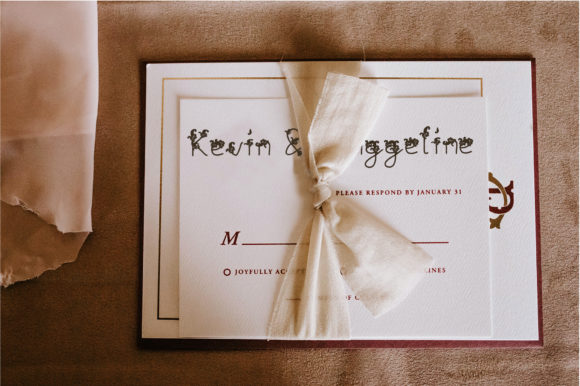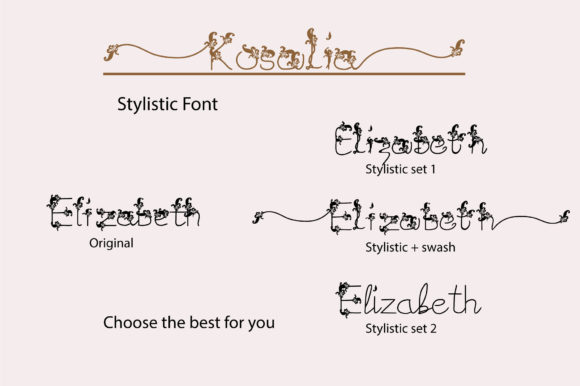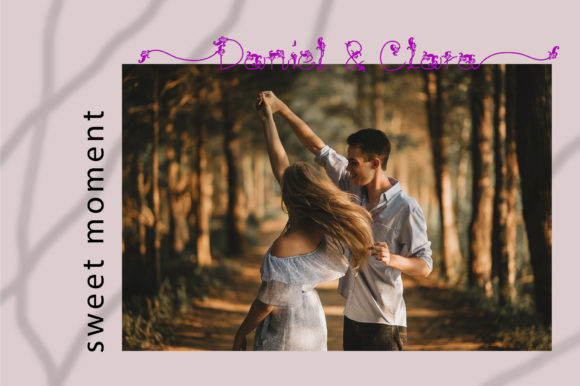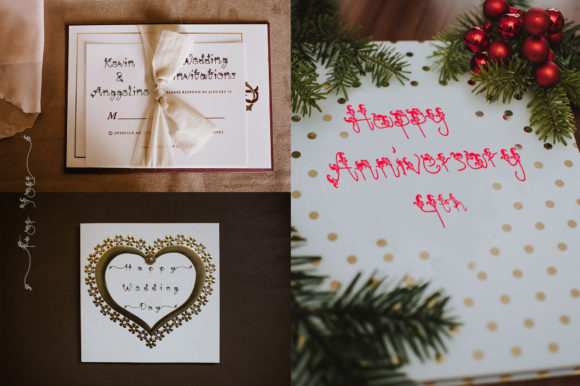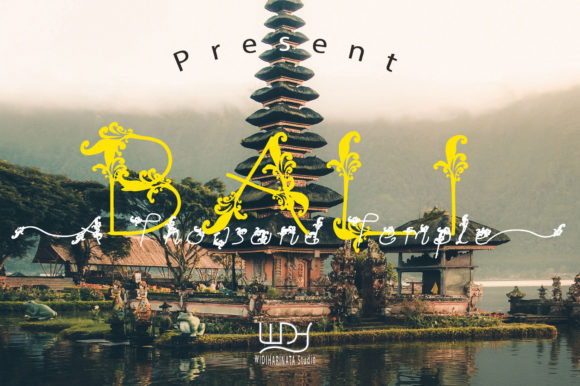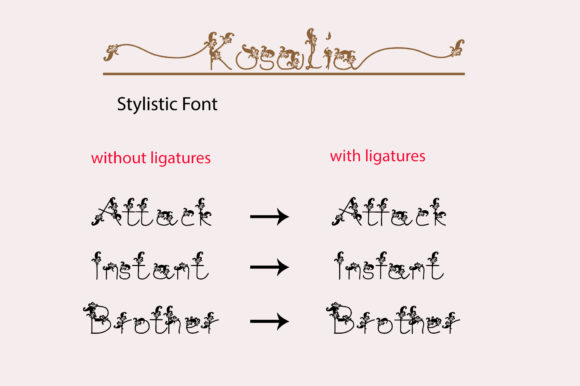
Introduction to Kosalia Font
Have you ever stared at a blank canvas, feeling the pressure to create something truly special, only to find yourself paralyzed by the endless possibilities? We’ve all been there – designers, artists, and creatives alike. But what if I told you there’s a secret ingredient that can elevate your next project from ordinary to extraordinary? Enter the Kosalia Font, a stunning decorative font that’s about to revolutionize your creative game.
This lovely and delicate font is more than just a pretty face – it’s a valuable resource for designers who crave a high-quality, elegant look for their designs. With its PUA-encoded features, you’ll have access to all the glyphs and swashes you need to add a touch of sophistication to your work. Whether you’re working on a free download or a paid project, Kosalia Font is the perfect design resource to take your creative project to the next level.
Key Features of Kosalia Font
- High-quality font design suitable for creative projects and design resources.
- Unique, elegant design makes it perfect for use in logos, branding, and typography-based projects.
Honest Review: Kosalia Font
I recently stumbled upon the Kosalia Font, and I must say it’s been a game-changer for my creative projects. This high-quality font is perfect for designers who want a unique and elegant look for their designs.
- ⚠️ The font is not as comprehensive as some other high-end fonts, with a limited character set.
- ⚠️ Some users may find the font’s design to be a bit too bold, making it unsuitable for more conservative designs.
Overall, I’m thoroughly impressed with the Kosalia Font. It’s a fantastic design resource that’s perfect for creative projects that require a touch of elegance and sophistication. With its high-quality design and transparent background feature, it’s a must-have for any designer looking to elevate their designs.
The Kosalia Font is a high-quality, free download design resource ideal for creative projects that require a unique and professional touch. With its transparent background, this font is perfect for designers looking to add a touch of elegance to their work.
Tips for Getting the Most Out of Kosalia Font
Use the Kosalia Font in combination with other high-quality design resources for a cohesive look. Experiment with different font sizes and colors to add visual interest to your design. Consider using the Kosalia Font in conjunction with a transparent background to create a unique and eye-catching design.
The Kosalia Font is ideal for use in a variety of creative projects, including branding, marketing materials, and digital designs. Its high-quality design and transparent background make it perfect for use in layered designs, and its free download status makes it an affordable option for designers on a budget.
Is the Kosalia Font suitable for designs with transparent backgrounds?
Yes, the Kosalia Font is designed to work well with transparent backgrounds. Its high-quality design and crisp typography make it an excellent choice for designs that require a clean and modern look. Additionally, the font’s transparent background allows for seamless integration with other design elements, making it a versatile choice for a variety of creative projects.